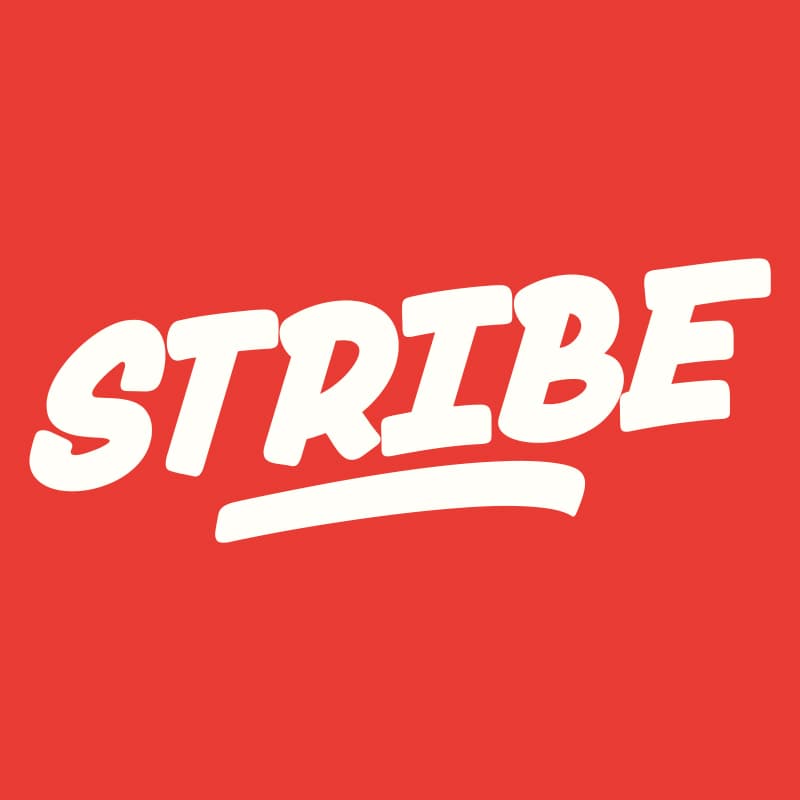
<p><strong>Stribe</strong> is an amazing work. Why? ... because this is not just talking about fonts, but more than that, with the spirit of street art, Stribe invites you to explore with your wild ideas.</p><p>I'm sure this will really make you feel happy in creating the work that you will wake up to in the front. Supported by 3 font choices that are very sweet and also strong, Stribe answers all your difficulties in choosing font support that suits your taste. </p><p>And the most exciting thing is, you get a free bonus vector illustration that is very detailed and also has a very strong street art spirit and is very original, so what are you waiting for? Have Stribe as soon as possible. Thank you for considering Stribe as your go-to font solution. </p><p>With its unique blend of style and strength, Stribe enhances your projects and gives them an artistic flair that stands out in any design.</p>